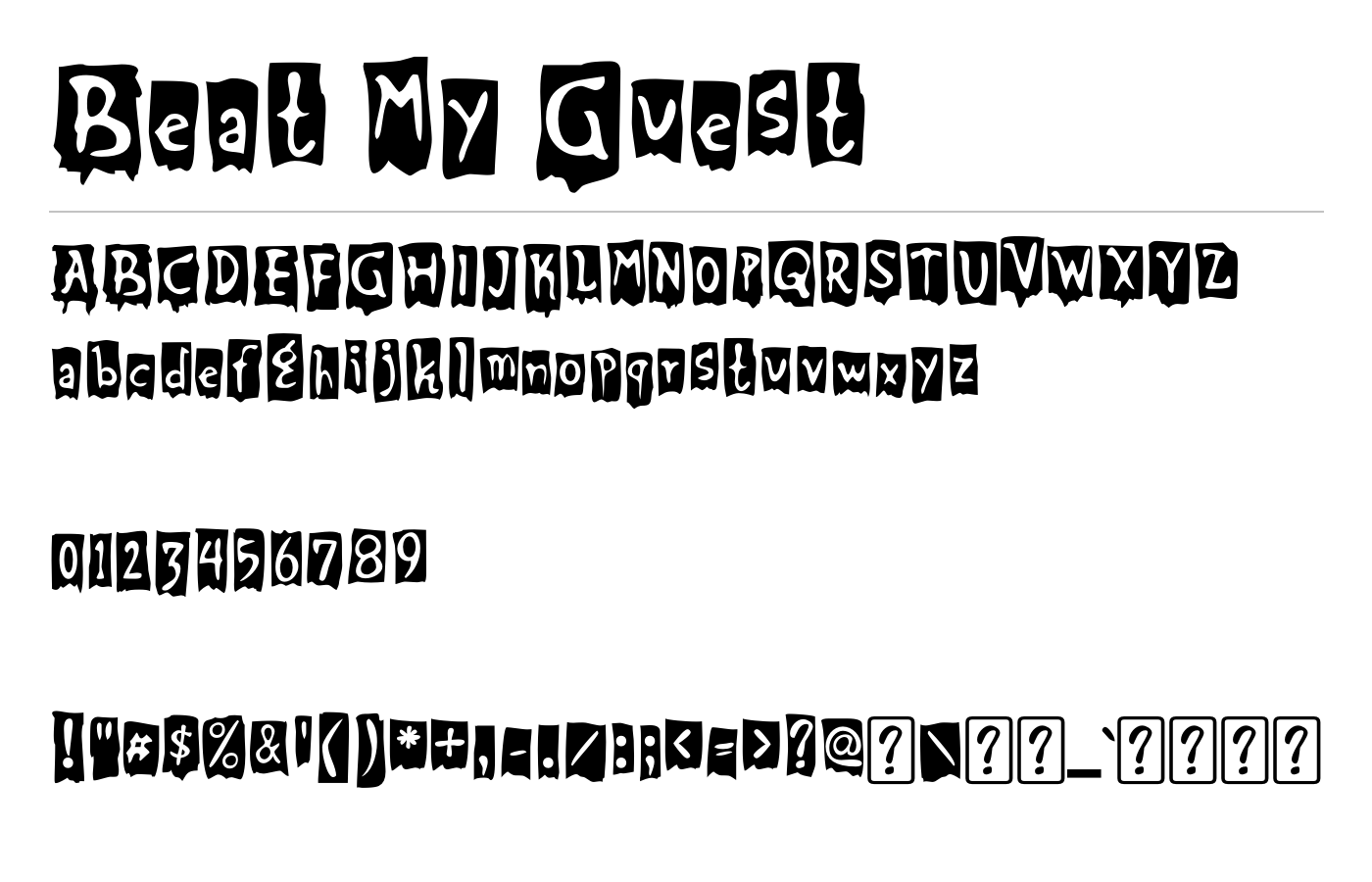
Beat My Guest is a playful, bold display font with a quirky, hand-crafted feel that features irregular, dripping shapes around each character, reminiscent of a spooky or Halloween theme. Its uneven strokes and fun personality make it ideal for eye-catching headlines, posters, or creative branding where a casual, lively vibe is desired. This font works best when you want to add a touch of whimsy and character to projects aimed at a youthful or festive audience.
Beat My Guest Font
About Beat My Guest Font
| Font family | Beat My Guest Font |
| Designer | Ray Larabie |